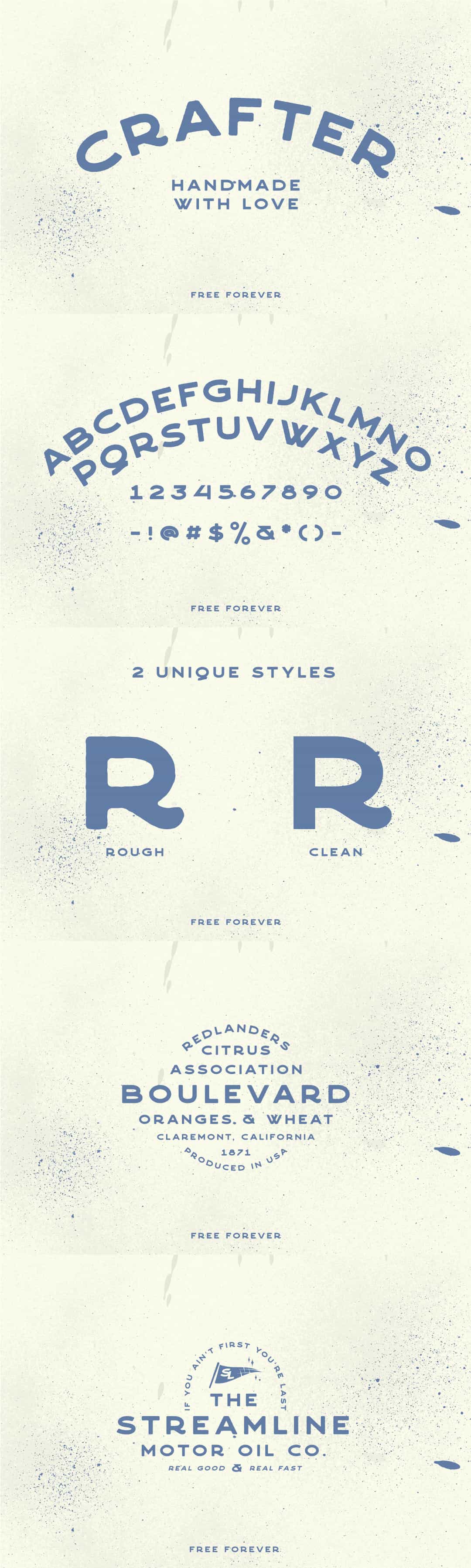
Crafter is a sans serif typeface; it is a new novel typeface that is developed by Project! The type of the <>, referring to the metal signs of the past and painters. This is ideal for posters, logos, t-shirts, social marketing, and anything that requires carving – Crafter has got it All.